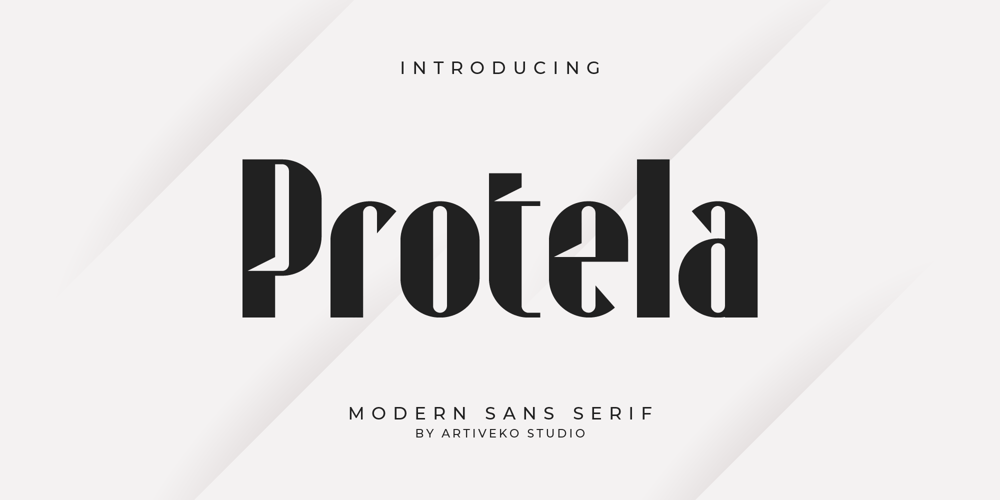
Protela Font Family was designed by Iwan Alwan and published by Artiveko. Protela contains 2 styles and family package options. Protela is a unique sans-serif font crafted by Iwan Alwan. This typeface stands out with its distinctive shapes and offers variations in both uppercase and lowercase characters. Protela supports multiple languages, making it versatile for diverse projects. Its clean and modern design ensures readability and style, perfect for branding, headlines, and digital content. Explore the elegance and functionality of Protela for your next creative venture.